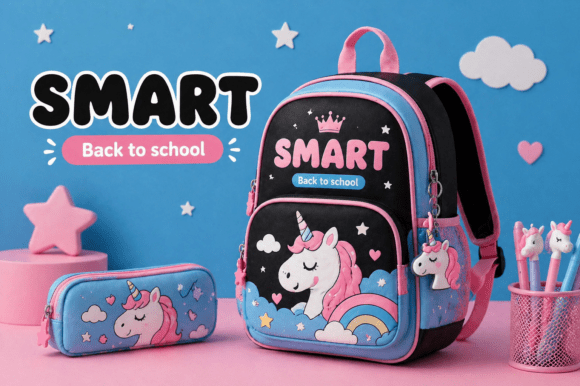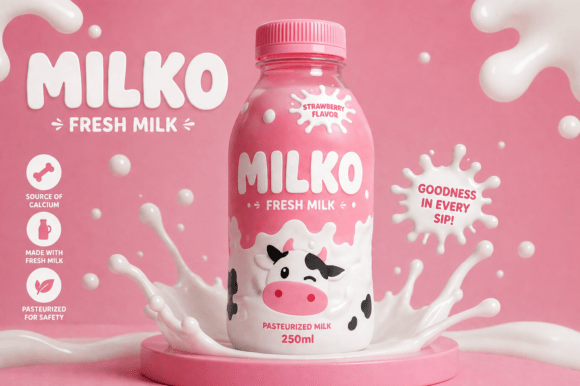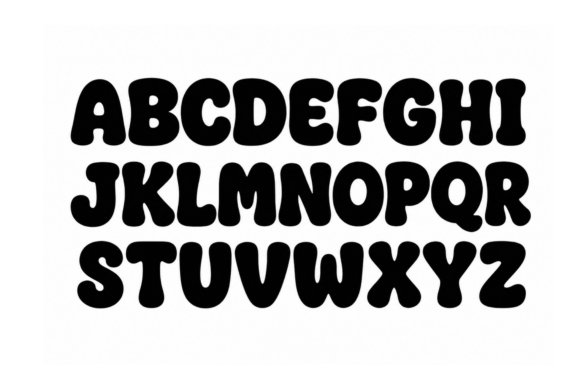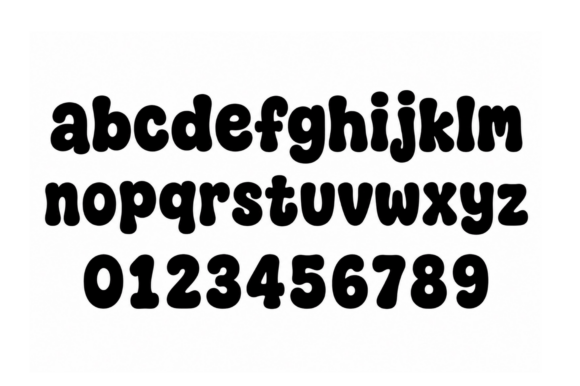
Introducing the Dowino Font: A Playful Typeface for Fun-Filled Designs
In the world of typography, fonts play a crucial role in conveying the tone and personality of a design. For designers and crafters looking to create fun-filled and kid-friendly content, the Dowino Font is an excellent choice. This charismatic typeface is uniquely designed to illuminate designs with its playful personality, making it perfect for projects that require a lively and imaginative approach.
The Characteristics of Dowino Font
Dowino’s character is captivating, meticulously crafted to deliver a bubble-like or rounded display font that creates a visual delight. The font’s robust letter shapes, curvy outlines, and minimalistic approach towards sharp corners make it an excellent choice for designs that require a joyful and carefree spirit. The Dowino Font is designed to capture attention and spark imagination with its vivacious charm, making it an ideal choice for designers and crafters who want to create engaging and interactive content.
Design Features of Dowino Font
The Dowino Font boasts several design features that make it stand out from other typefaces. Some of its notable features include:
- Rounded Letter Shapes: The Dowino Font features rounded letter shapes that give it a friendly and approachable feel. The rounded shapes also make the font more legible, especially for younger audiences.
- Curvy Outlines: The font’s curvy outlines add a touch of playfulness and whimsy to the design. The smooth curves also make the font more visually appealing, creating a delightful experience for the viewer.
- Minimalistic Approach: The Dowino Font’s minimalistic approach towards sharp corners makes it an excellent choice for designs that require a clean and simple look. The font’s minimalist design also makes it versatile, allowing it to be used in a variety of contexts.
Uses of Dowino Font
The Dowino Font is an excellent choice for designers and crafters who want to create fun-filled and kid-friendly content. Some of the uses of the Dowino Font include:
- Children’s Books and Magazines: The Dowino Font is perfect for children’s books and magazines, as it creates a playful and engaging atmosphere that appeals to young readers.
- Kid-Friendly Websites and Blogs: The font’s playful personality makes it an excellent choice for kid-friendly websites and blogs, adding a touch of whimsy and fun to the design.
- Playful Posters and Flyers: The Dowino Font is ideal for creating playful posters and flyers that require a lively and attention-grabbing design.
- Crafting and DIY Projects: The font’s versatility makes it an excellent choice for crafting and DIY projects, such as making fun and colorful signs, labels, and cards.
Benefits of Using Dowino Font
The Dowino Font offers several benefits to designers and crafters, including:
- Unique and Playful Personality: The Dowino Font’s unique and playful personality makes it an excellent choice for designers and crafters who want to create fun-filled and kid-friendly content.
- High Legibility: The font’s rounded letter shapes and curvy outlines make it highly legible, especially for younger audiences.
- Versatility: The Dowino Font’s minimalist design makes it versatile, allowing it to be used in a variety of contexts.
In conclusion, the Dowino Font is an excellent choice for designers and crafters who want to create fun-filled and kid-friendly content. Its unique and playful personality, high legibility, and versatility make it an ideal choice for a variety of projects, from children’s books and magazines to playful posters and flyers. With the Dowino Font, designers and crafters can add a touch of whimsy and fun to their designs, creating a delightful experience for their audience.